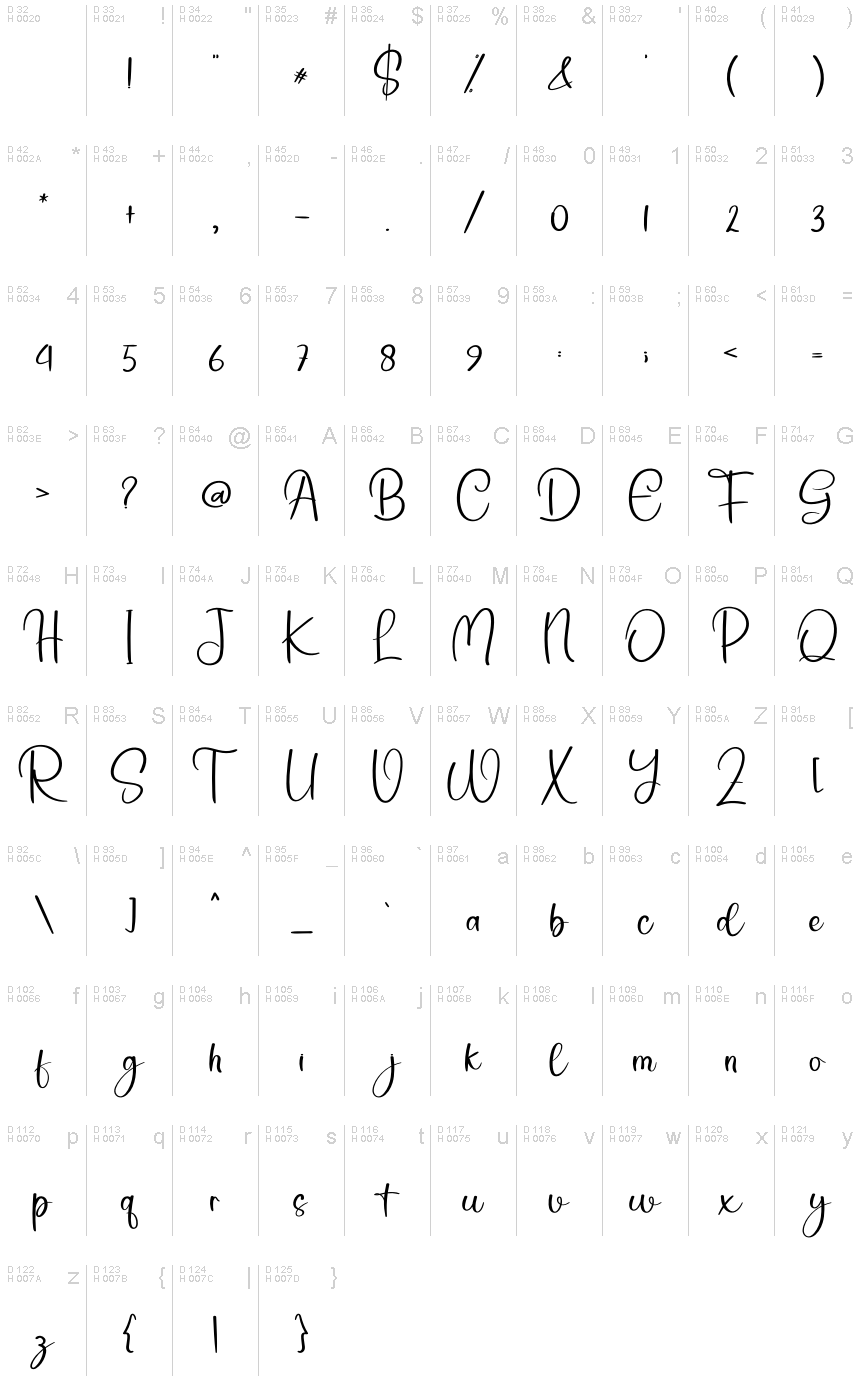
Simple Present
Simple Present, designed by Etik Fatimah, exudes a personal touch with its handwritten style that seems to dance across the page with an effortless flow. Its charming irregularities and fluid strokes evoke the intimacy of a handwritten letter, making it ideal for projects that require a touch of warmth and individuality. With its casual elegance, Simple Present lends itself beautifully to invitations, branding, and creative editorial work where personality is key.
This font's inviting character ensures that any message conveyed will feel sincere and crafted with care.